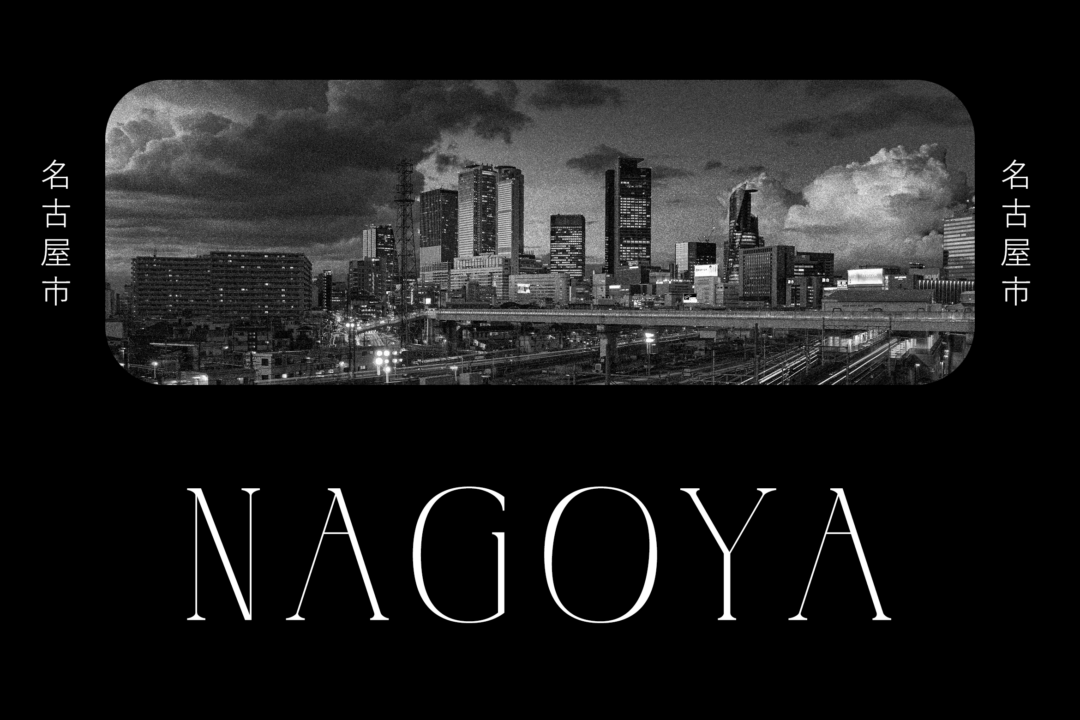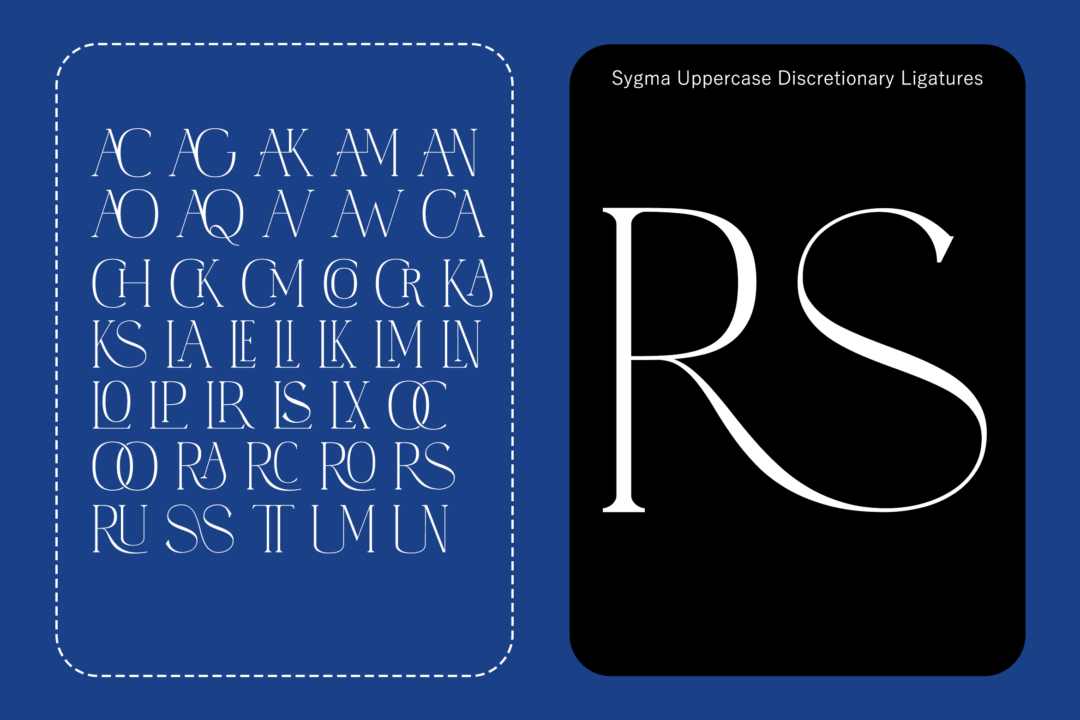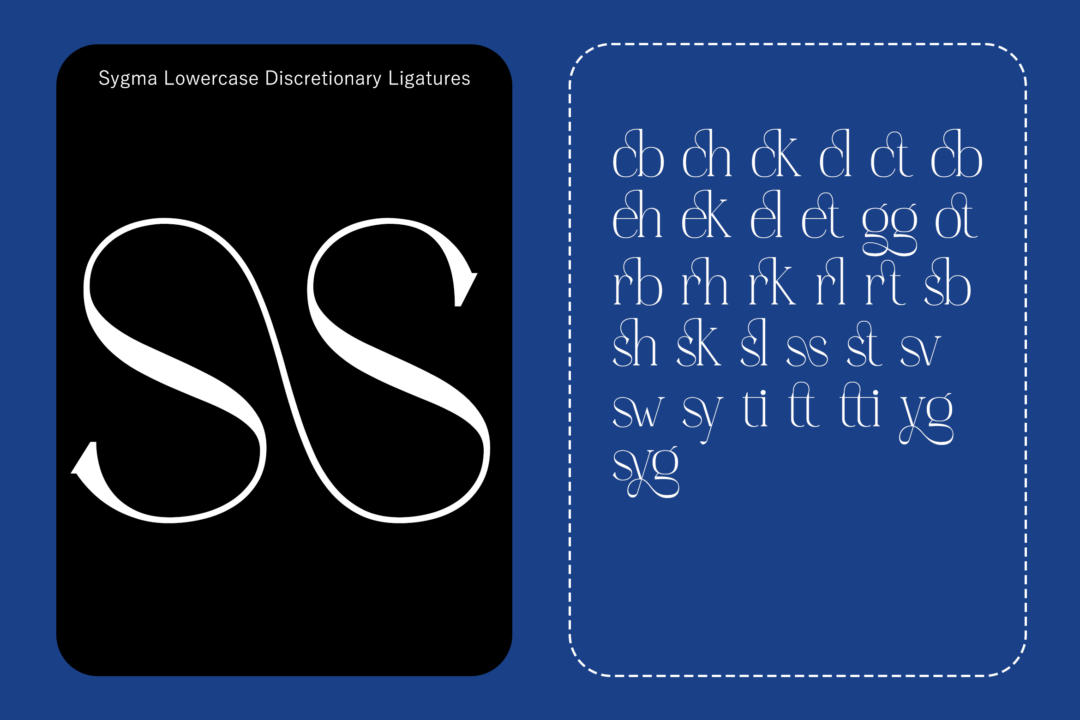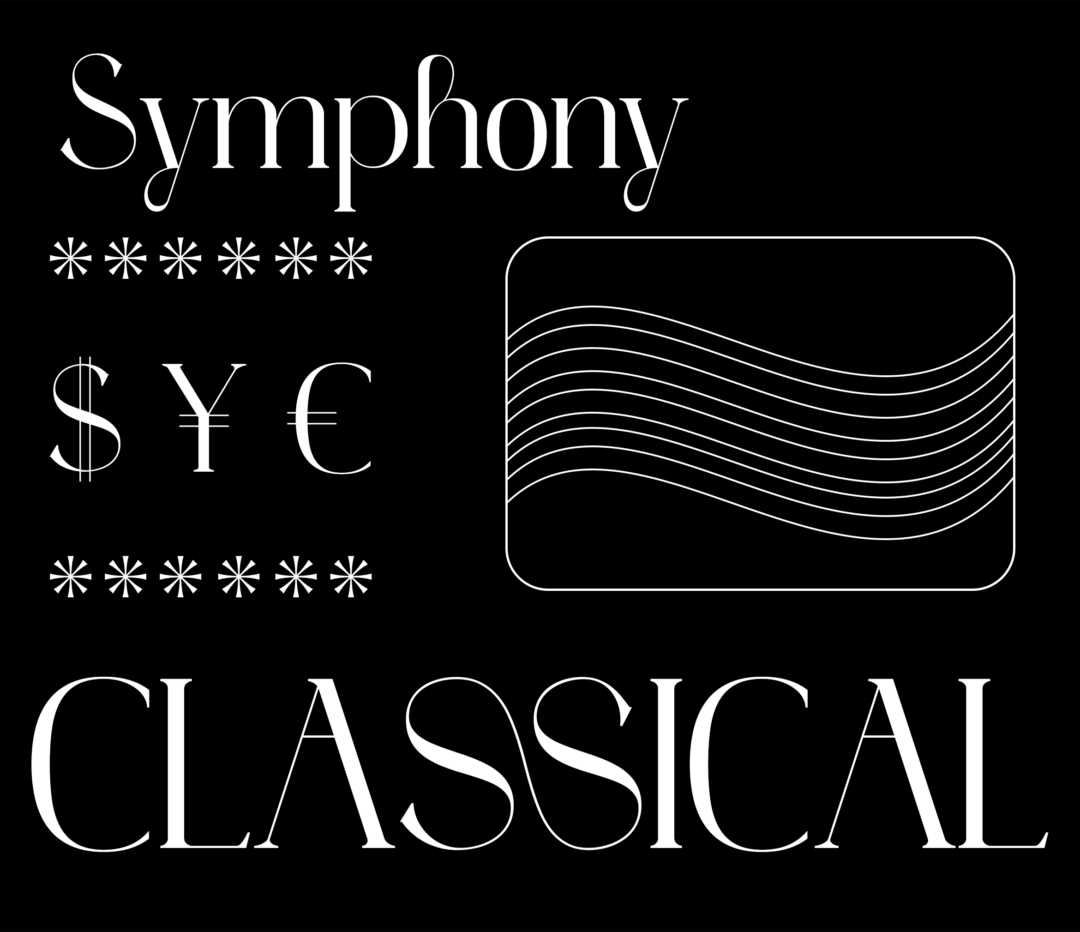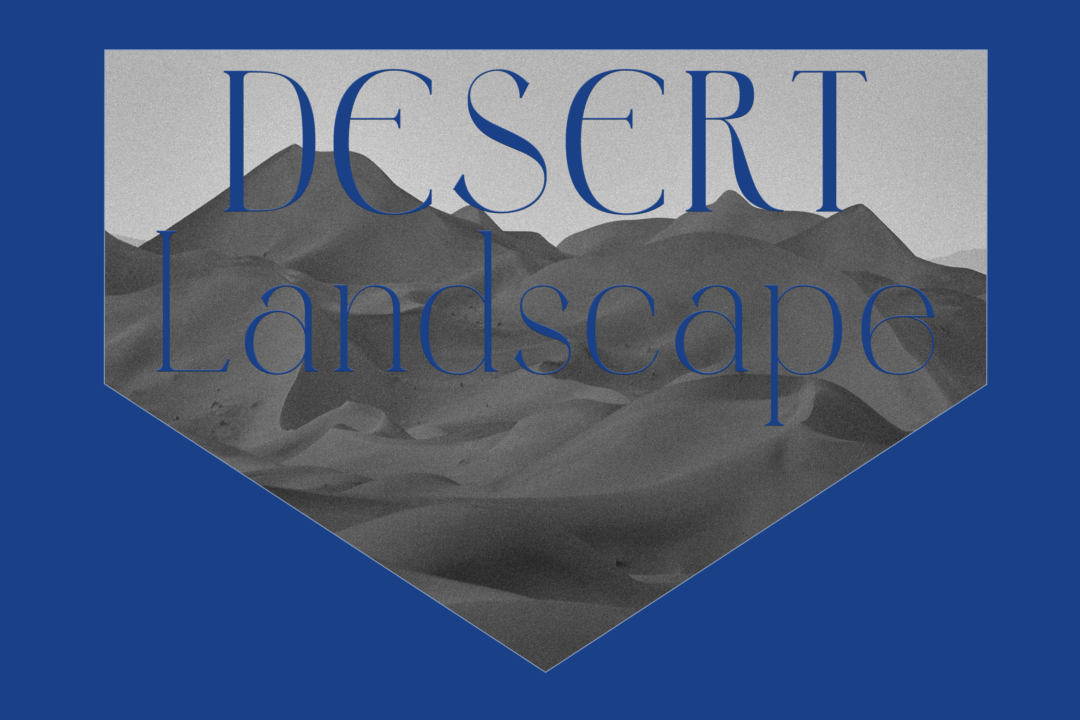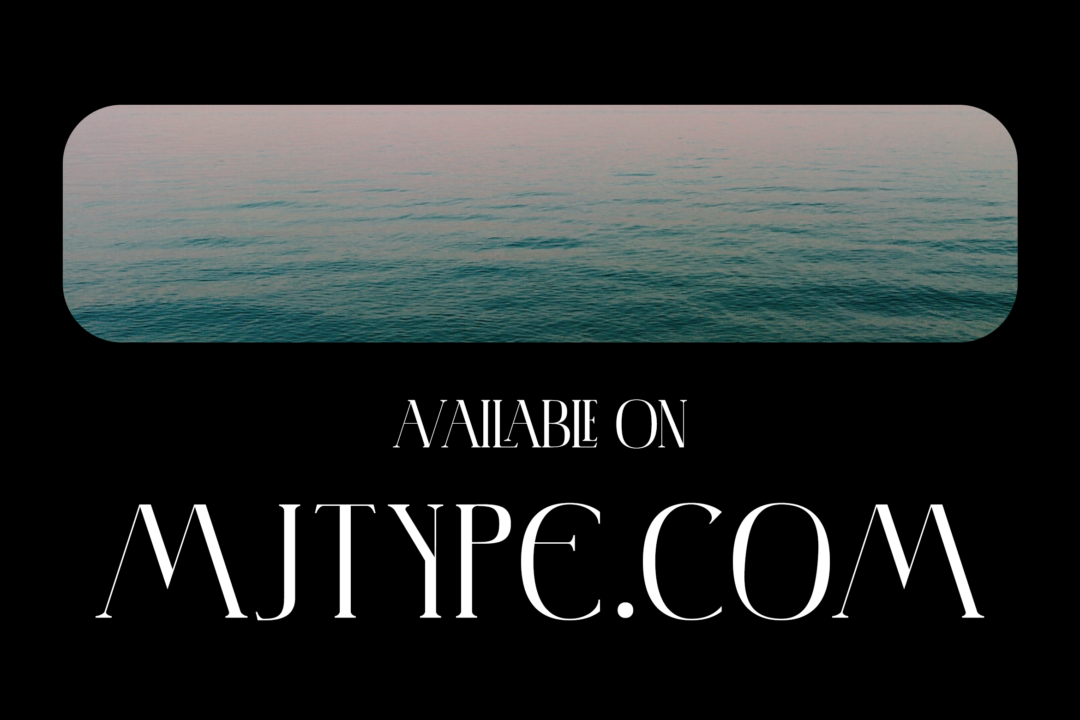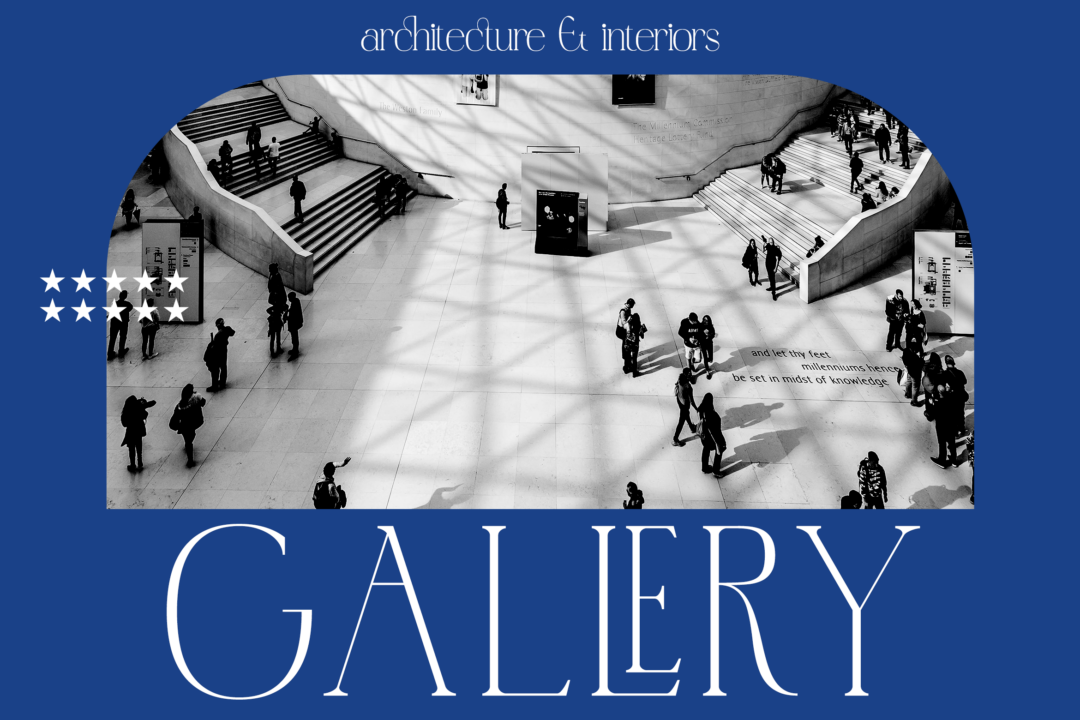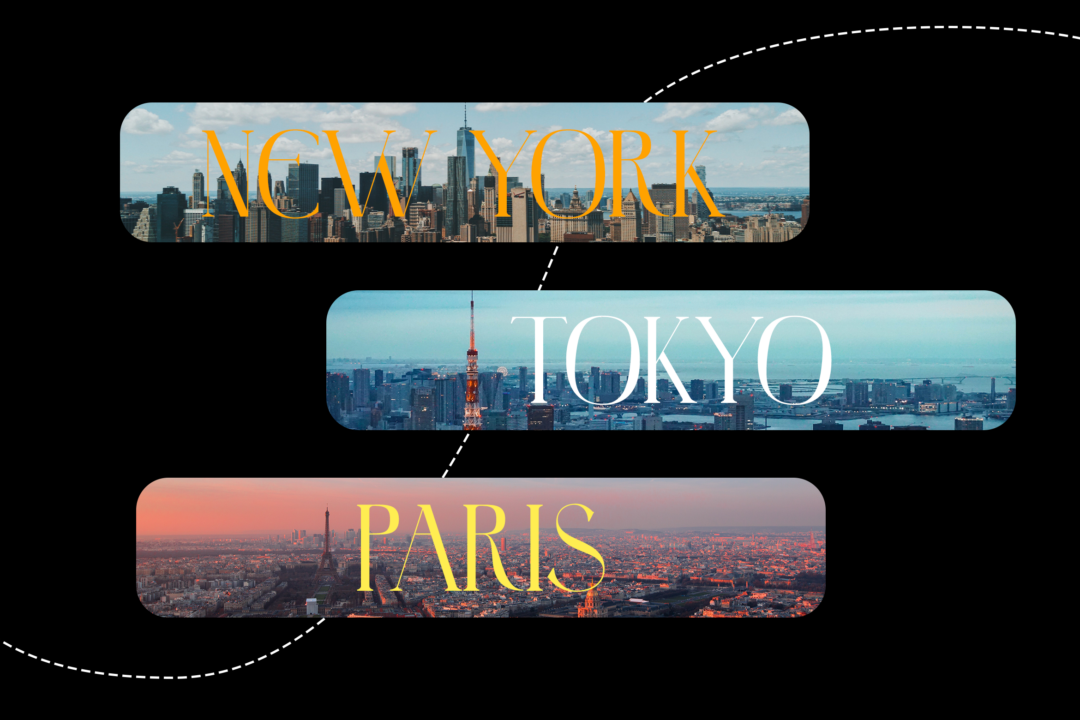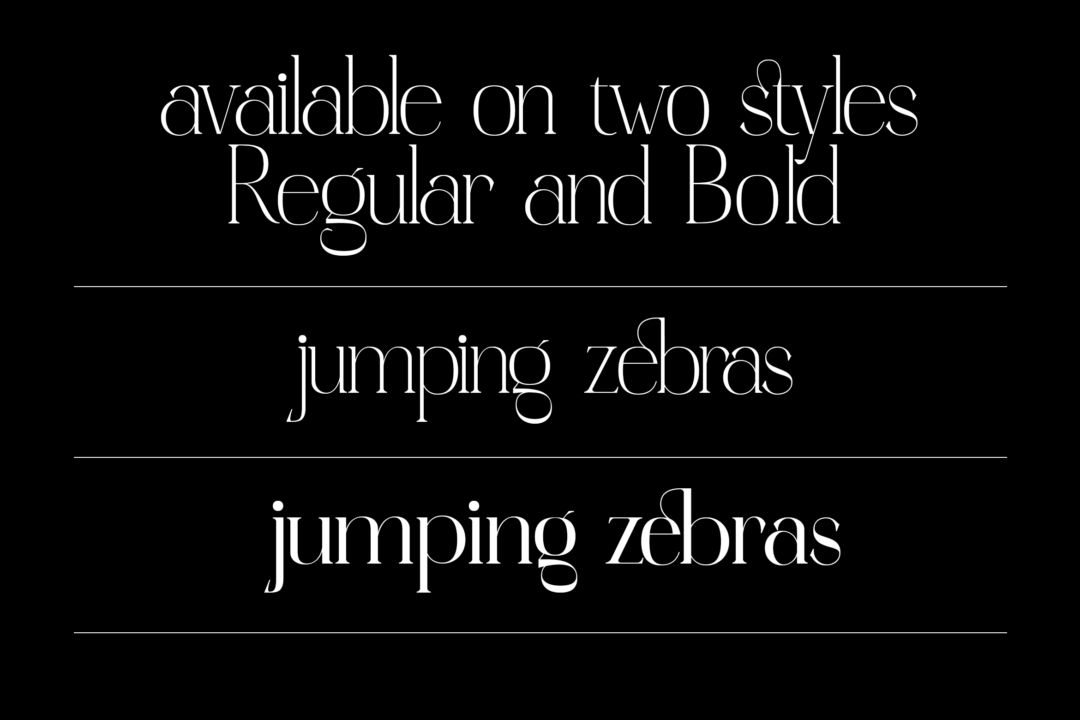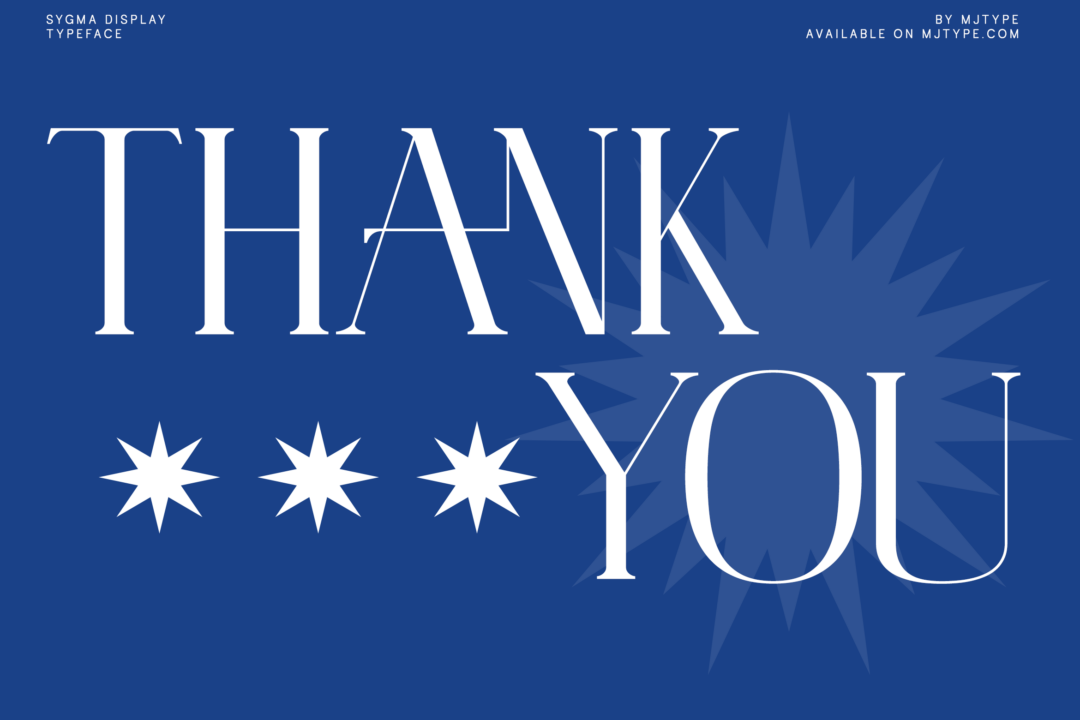
Sygma Display Typeface Serif, an elegant and sophisticated serif font. This font is designed to add a touch of class and refinement to any project and is sure to make a lasting impression on any audience. With its clean lines and refined details, Sygma Display Typeface Serif is the perfect choice for professional design projects, including branding, poster, and specific advertise. Whether you’re a designer, marketer, or just looking to add a touch of elegance to your personal projects, I hope Sygma Display Typeface Serif is an excellent choice.
- Ligature & Alternate